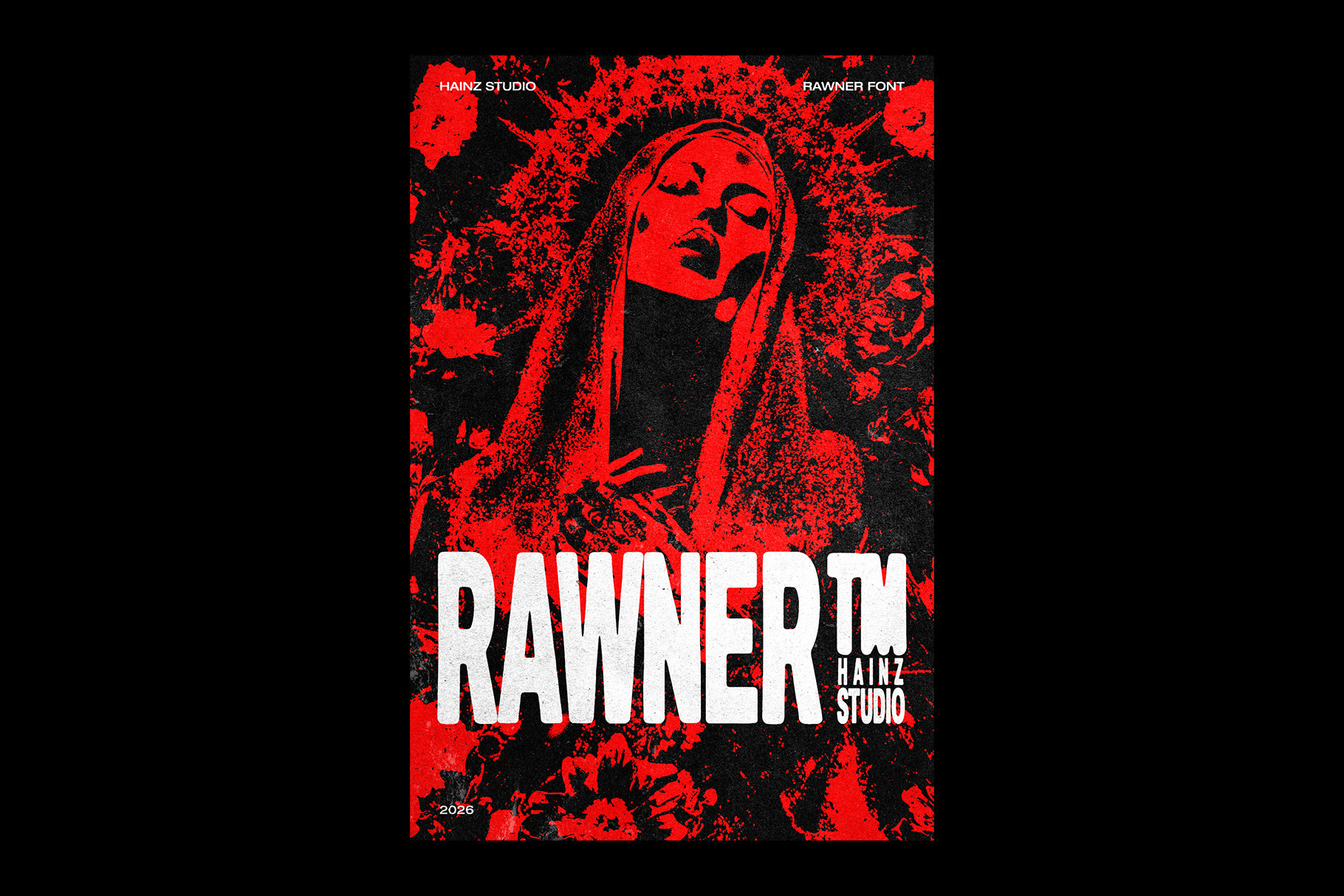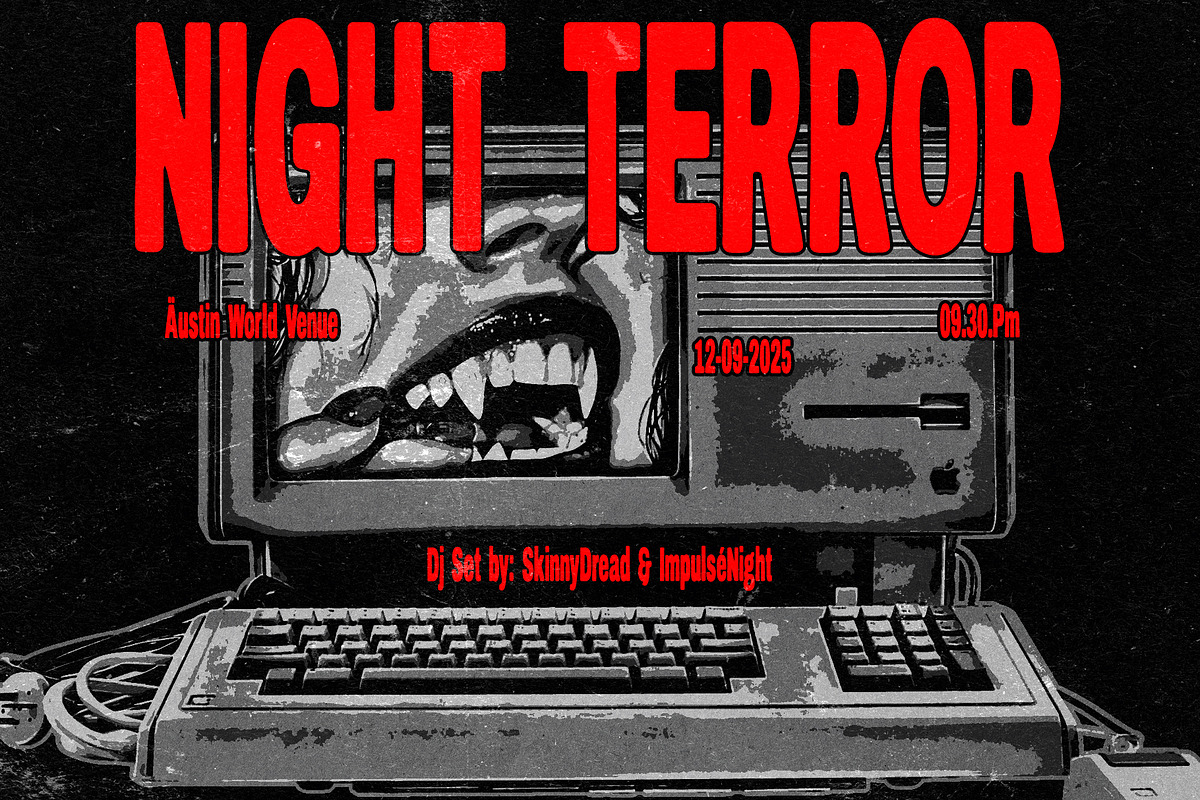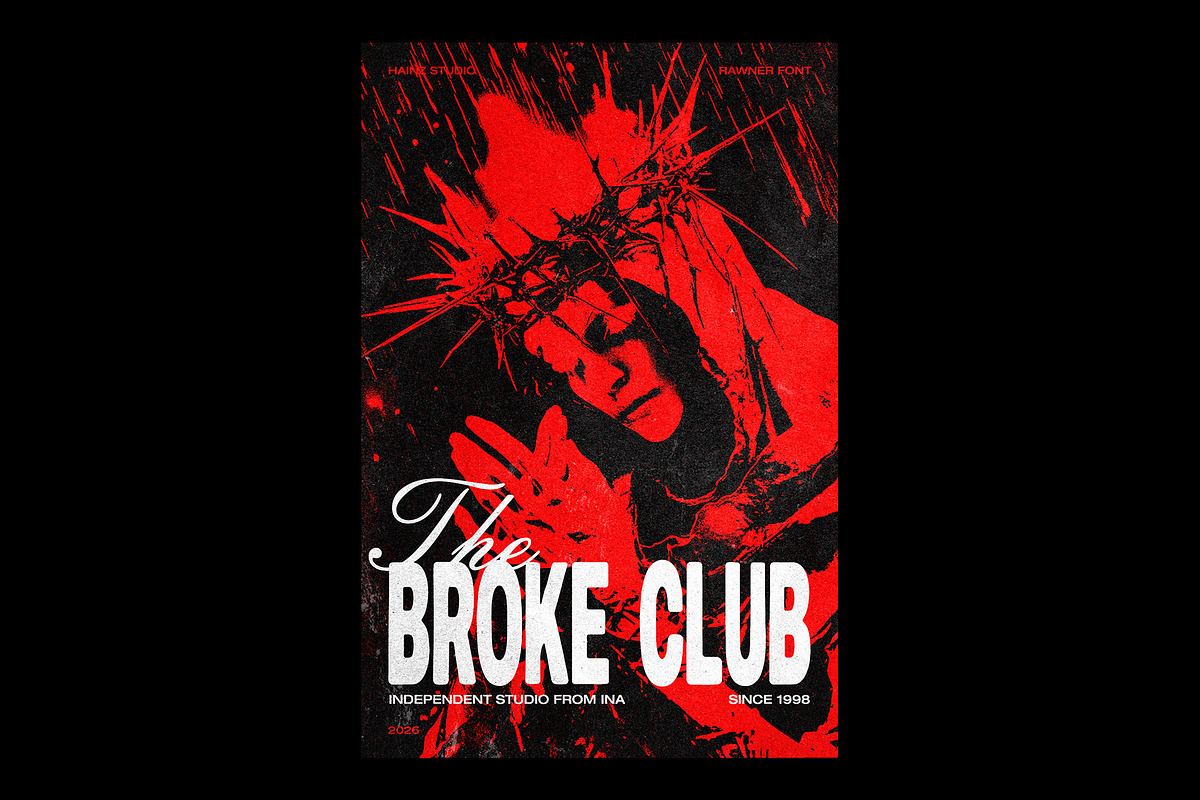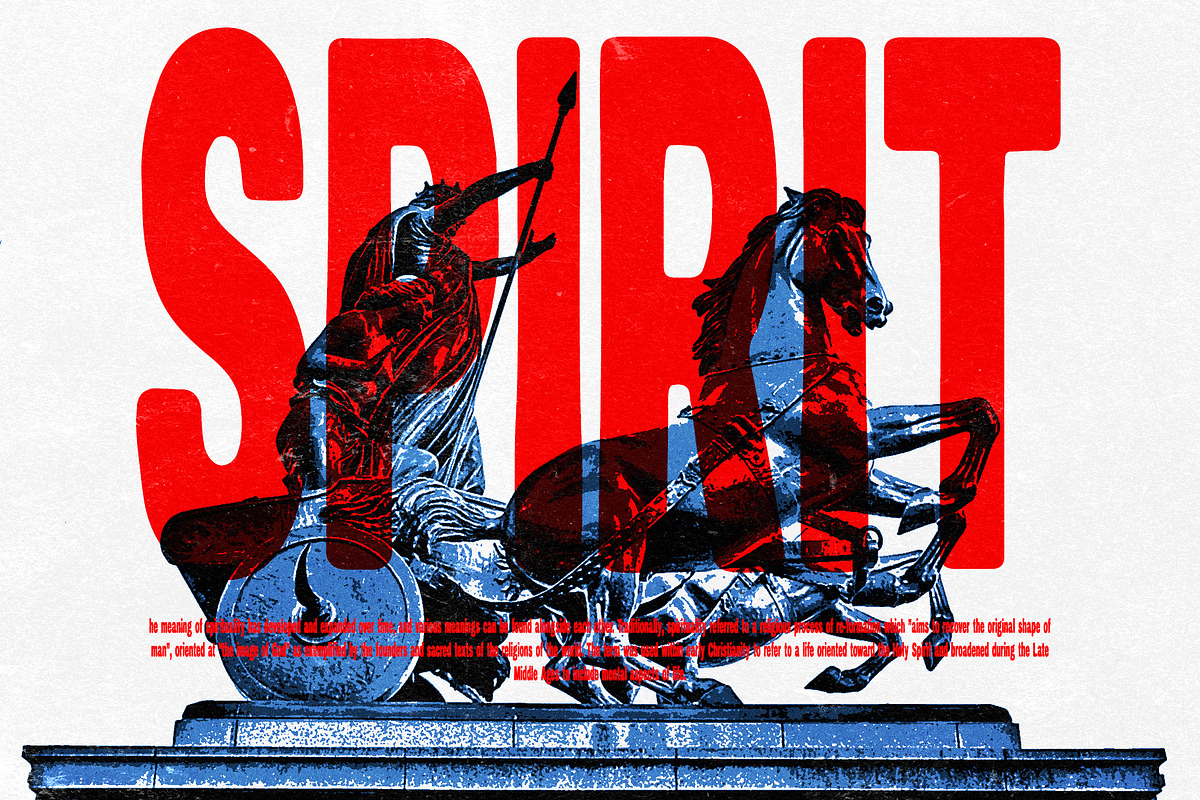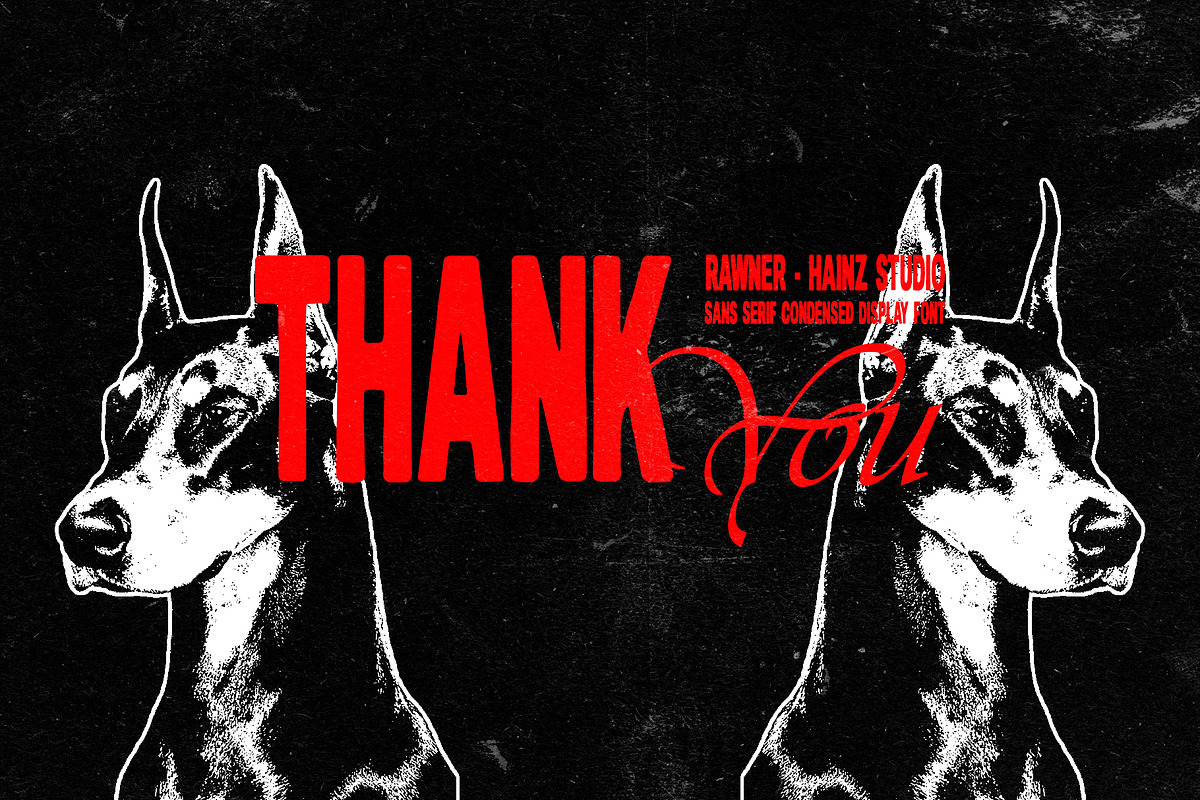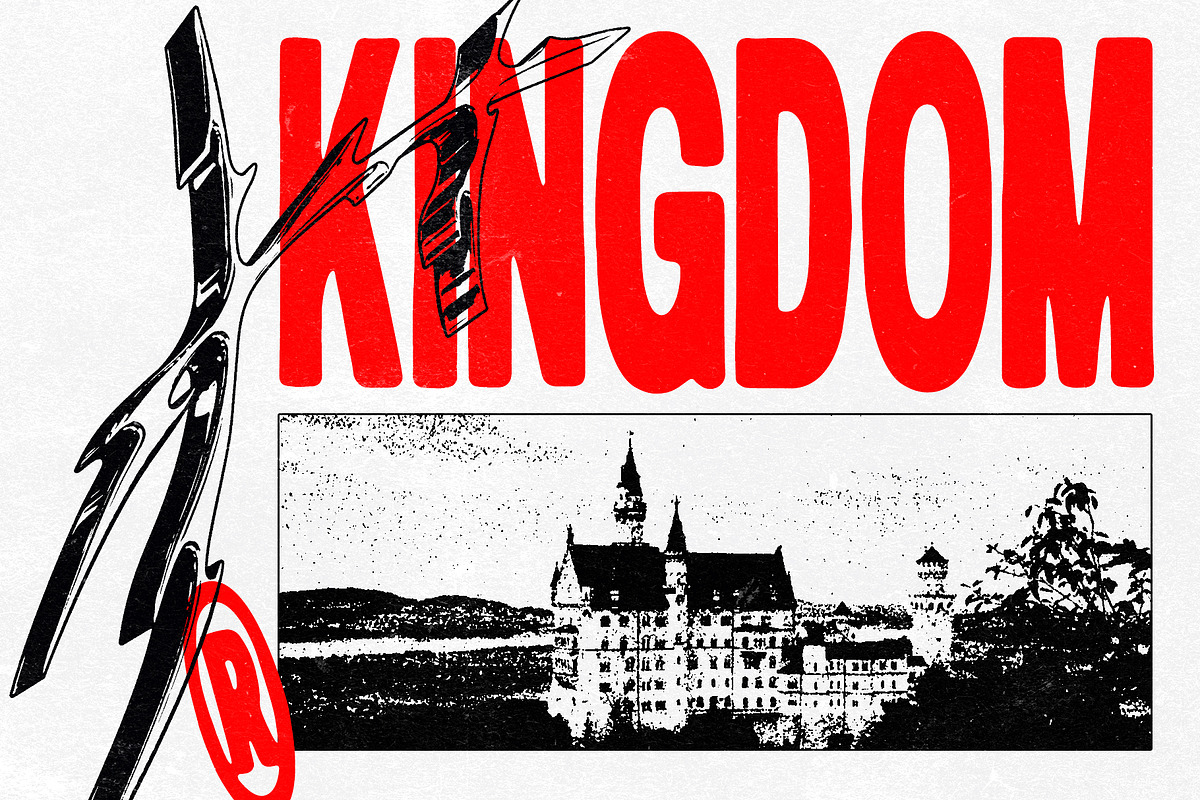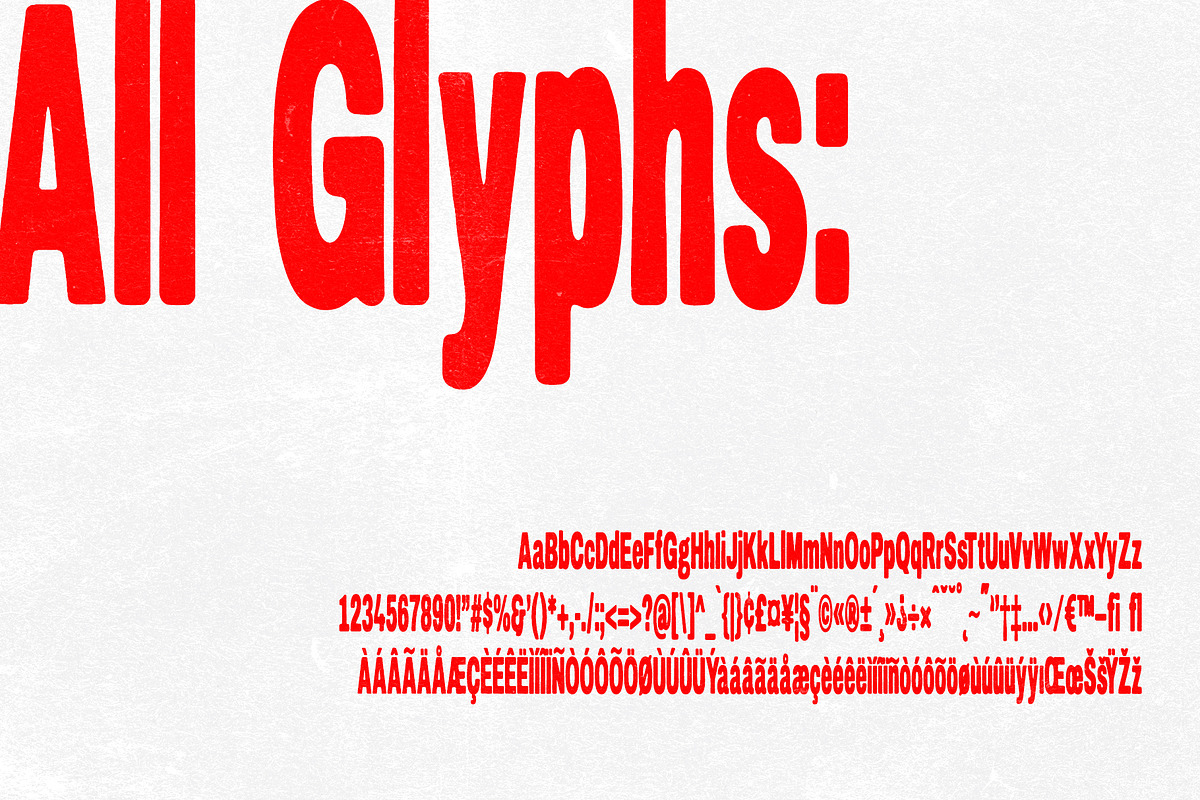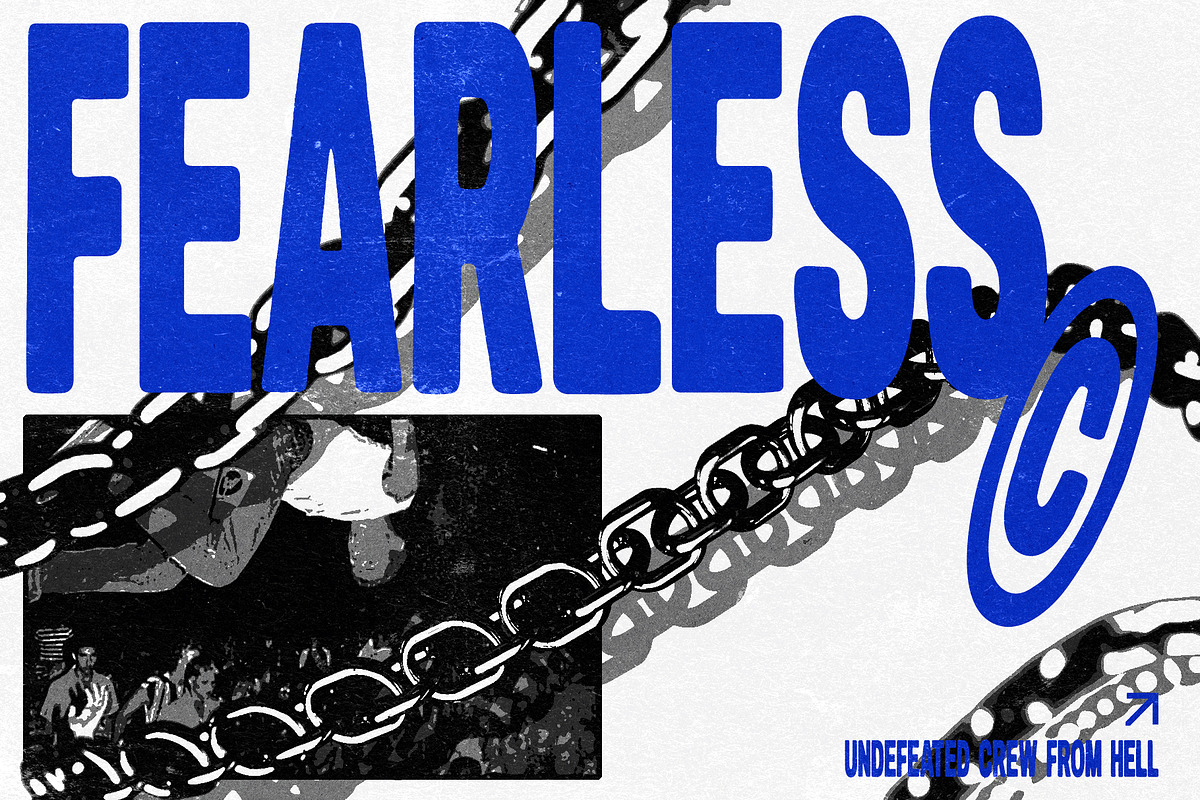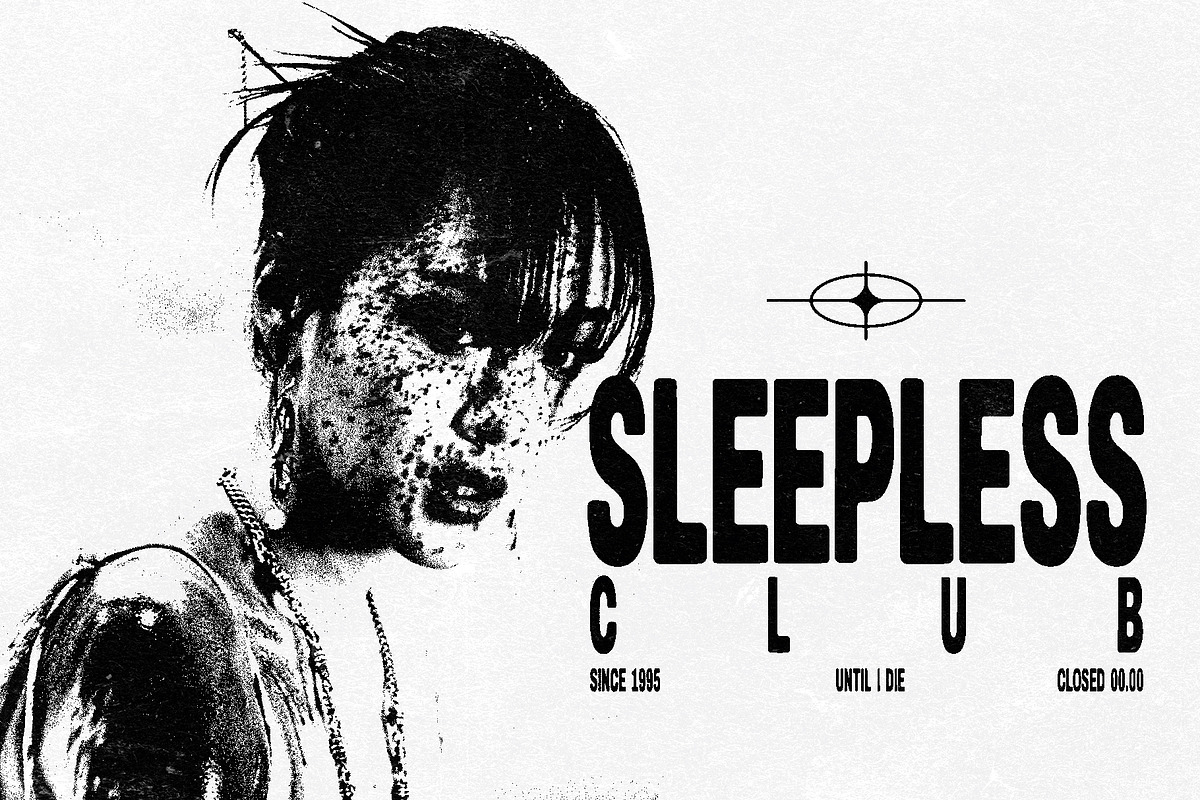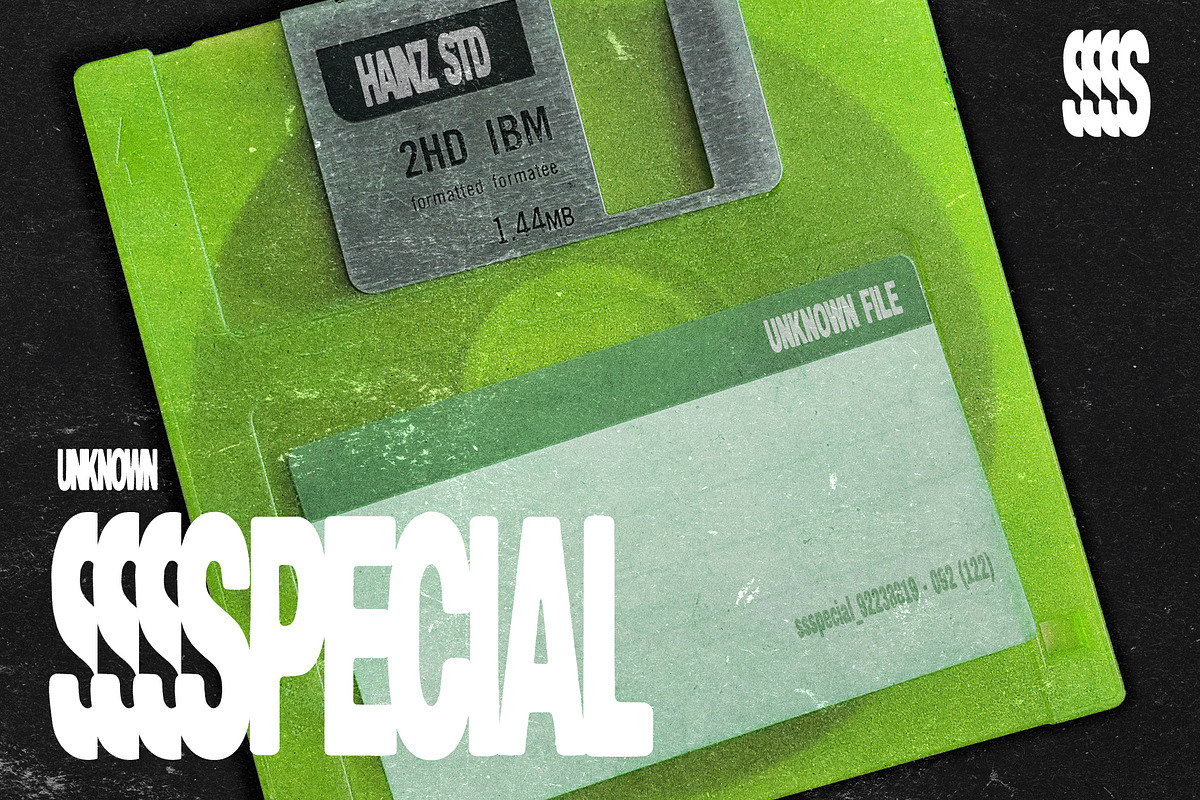
Rawner - Condensed Display Font
Rawner – Condensed Sans Serif Display
Meet Rawner, a powerful and modern condensed sans serif font designed to make a bold statement. Its tall, narrow structure and strong geometric forms make it perfect for headlines, branding, posters, logos, and more. Rawner’s clean, contemporary vibe gives your designs a confident, professional edge—ideal for both print and digital media. It’s highly legible, impactful, and built to perform across a wide range of creative projects.
- Uppercase Letters
- Numbers & Basic Punctuation
- Multilingual Characters
If you're looking for a condensed font with strong personality and clean lines—Rawner is ready to elevate your next project.